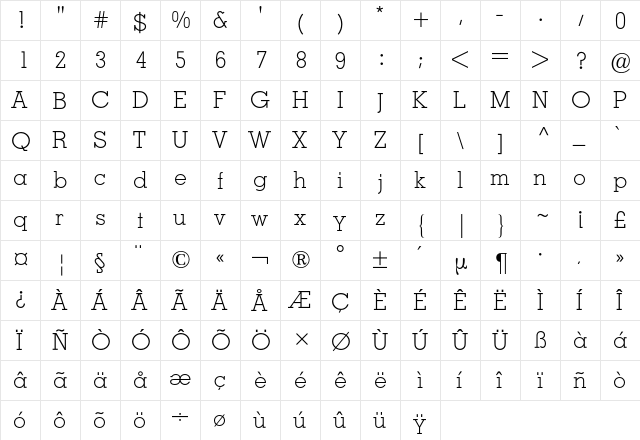
Memphis BQ Regular Font Preview
Memphis BQ Regular
Design Context for Memphis BQ Typeface
Memphis BQ is a composed and adaptable typeface that performs quietly and consistently across a wide range of design contexts.